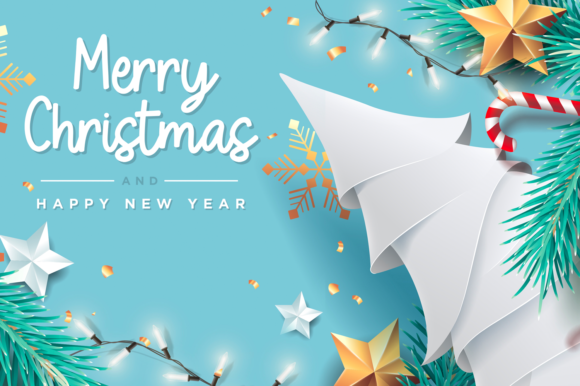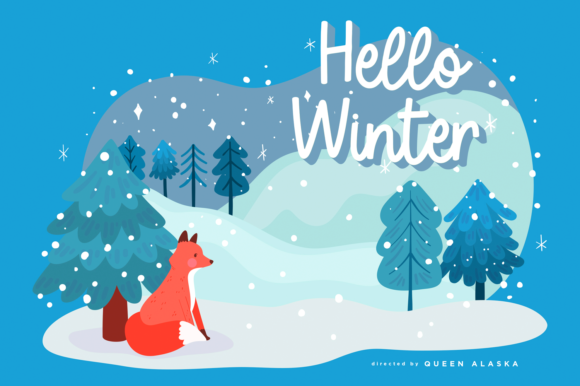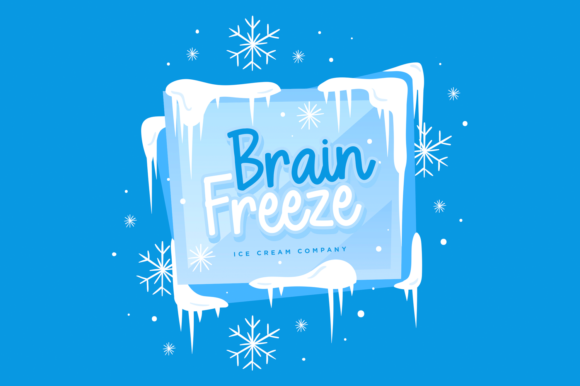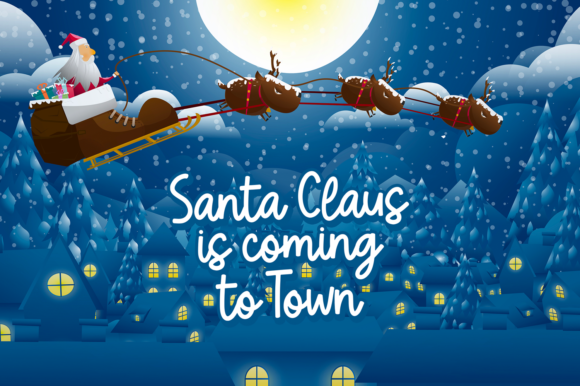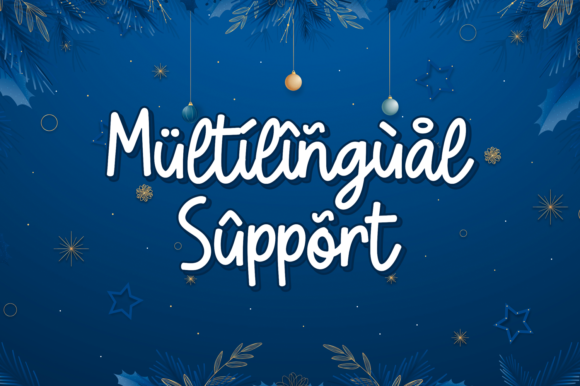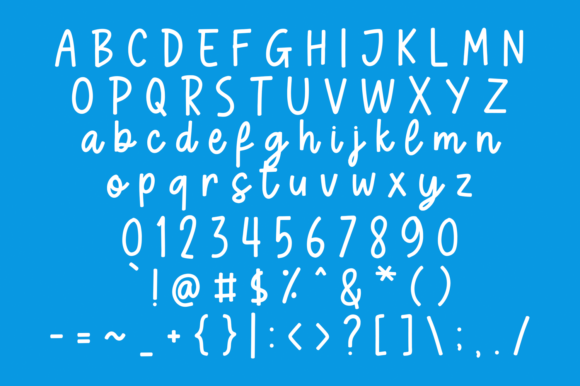
Frosty Blue Font: The Sweet and Friendly Handwritten Font for Your Creative Projects
Are you a designer or crafter looking for a unique and versatile font to elevate your creative projects? Look no further than Frosty Blue, a sweet and friendly handwritten font that’s perfect for a wide range of designs. With its natural and distinctive style, Frosty Blue is sure to capture the hearts of your audience and leave a lasting impression.
The Charm of Frosty Blue
Frosty Blue is a beautifully crafted handwritten font that’s designed to bring a touch of warmth and personality to your designs. Its sweet and friendly style makes it perfect for projects that require a personal and approachable feel, such as invitations, greeting cards, and social media graphics. The font’s natural and unique style also makes it incredibly versatile, allowing you to use it for a wide range of creative projects, from branding and packaging to web design and more.
The best part about Frosty Blue is that its possibilities are endless. The only limit is your imagination! You can use it to create stunning headings, elegant body text, or even decorative elements like quotes and captions. Whether you’re designing for print or digital, Frosty Blue is the perfect choice for any project that requires a personal and creative touch.
Why Choose Frosty Blue?
So why choose Frosty Blue over other fonts? Here are just a few reasons why this sweet and friendly handwritten font stands out:
- Unique and distinctive style: Frosty Blue has a one-of-a-kind style that’s sure to set your designs apart from the rest.
- Natural and approachable feel: The font’s natural and friendly style makes it perfect for projects that require a personal touch.
- Highly versatile: Frosty Blue can be used for a wide range of creative projects, from branding and packaging to web design and more.
- Easily readable: Despite its unique style, Frosty Blue is still highly readable, making it perfect for body text and other applications where clarity is key.
How to Use Frosty Blue in Your Designs
- Pair it with bold colors: Frosty Blue looks amazing when paired with bold and bright colors. Try pairing it with a bold red or blue to create a stunning contrast.
- Use it for headings and titles: Frosty Blue is perfect for headings and titles, where its unique style can really shine.
- Experiment with different sizes: Don’t be afraid to experiment with different sizes and font weights to create visual interest and hierarchy in your designs.
In conclusion, Frosty Blue is a sweet and friendly handwritten font that’s perfect for designers and crafters looking to add a personal touch to their creative projects. With its natural and unique style, Frosty Blue is incredibly versatile and can be used for a wide range of designs. Whether you’re designing for print or digital, Frosty Blue is sure to capture the hearts of your audience and leave a lasting impression. So why wait? Give Frosty Blue a try today and see the magic for yourself!
- Sweet and friendly handwritten font
- Natural and unique style
- Incredibly versatile
- Perfect for a wide range of creative projects
- Easily readable